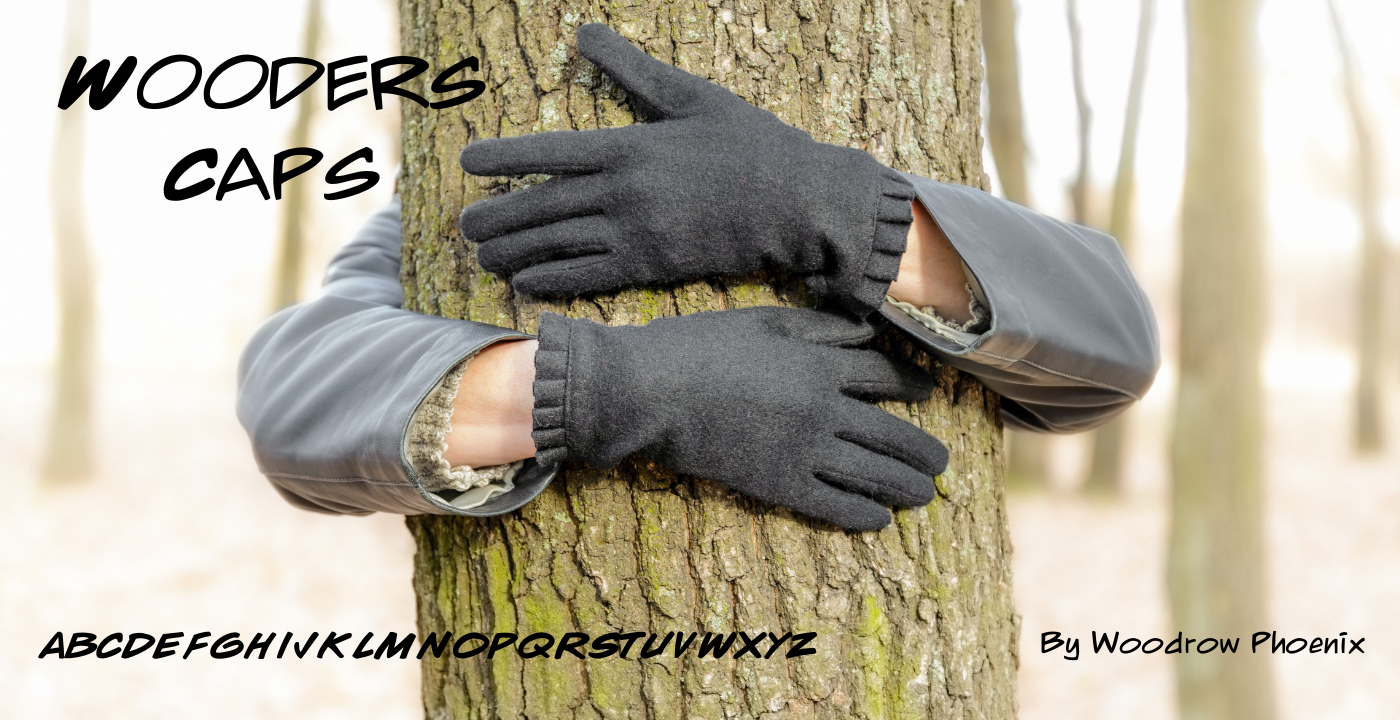
Wooders is a friendly and casual, hand drawn sans serif alphabet designed by Woodrow Phoenix, a British comics artist, writer, editorial illustrator, graphic designer, font designer and author of children's books. Phoenix's work is graphic and playful, while noted for its high degree of formal experimentation. He draws in very different styles, which make his comics appear to be the work of three or four completely different creators. This design is great for anything from children's books, editorial, advertising, signage, culinary packaging, and the web.
About Woodrow Phoenix
Woodrow Phoenix is a British comics artist, writer, editorial illustrator, graphic designer, font designer and author of children's books. He was a contributor to a number of British comics magazines including Escape, Blaaam! and Blast! and was part of the British small press comics scene in the 1980s.
A trained typographer, Phoenix was a letterer in the 1980s for most of the UK's comics publishers, including Escape, Fleetway, Dark Horse UK, Toxic and Acme. He also lettered graphic novels for Gollancz and Methuen.
Phoenix's work is graphic and playful, while noted for its high degree of formal experimentation.